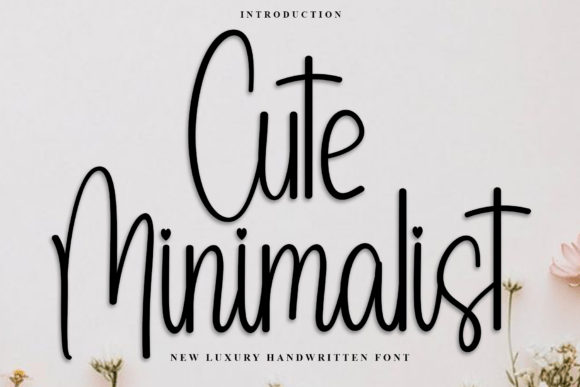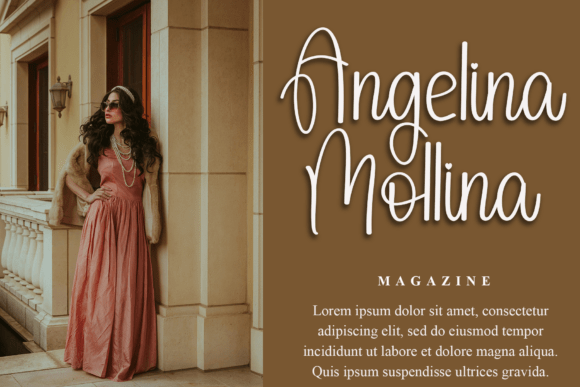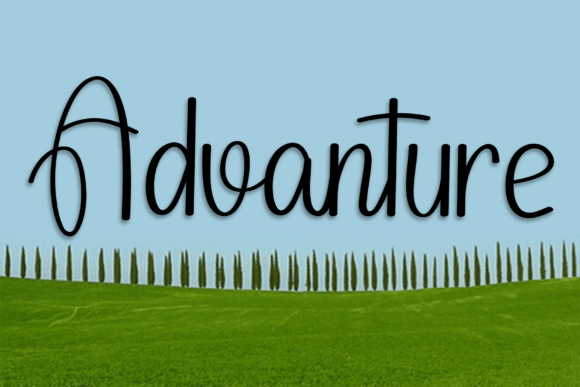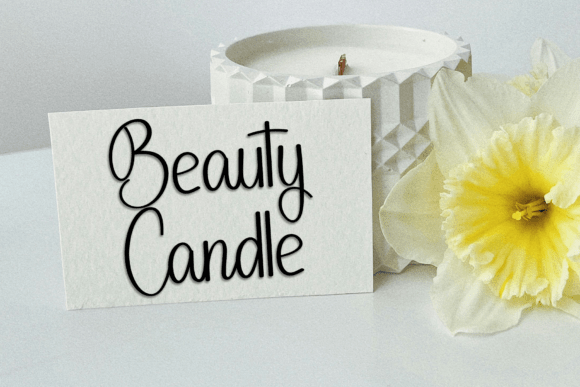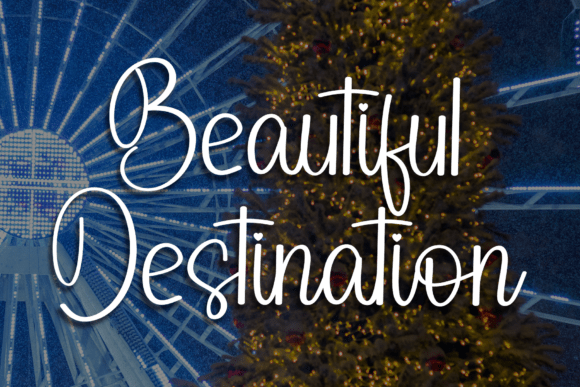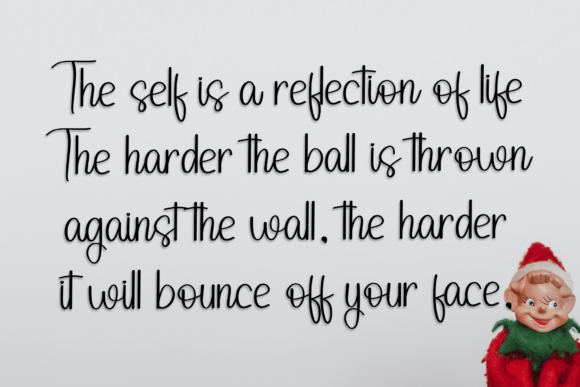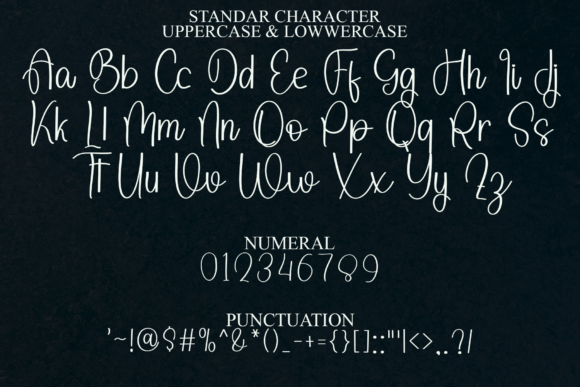
Unleashing the Magic of the Holiday Season: Cute Minimalist Font
As the snowflakes start to fall and the festive lights begin to twinkle, many of us find ourselves in a creative frenzy, eager to capture the essence of the holiday season in our designs. For graphic designers and typographers, this is the perfect moment to bring out the big guns – or in this case, the perfect font.
Enter the Cute Minimalist Font, a delightful and enchanting typeface that embodies the spirit of the holiday season. With its charming decorations and whimsical flair, this font is a treasure trove of creative possibilities, waiting to be unleashed on greeting cards, gift tags, and holiday-themed projects. Whether you’re a seasoned designer or a creative enthusiast, the Cute Minimalist Font is an invaluable addition to your typography toolkit, guaranteed to bring a touch of magic to your words.
Cute Minimalist Font Key Features
- Unique Characteristics: Hand-drawn, minimalist design with rounded edges and subtle flair, perfect for creating a clean and approachable aesthetic
- Character Set: Includes a comprehensive set of Latin characters, including accents and punctuation, as well as basic Cyrillic and Greek characters
- Font Weight: Available in 3 weights: Light, Regular, and Bold, allowing for a range of design options
Cute Minimalist Font Review
I recently had the chance to work with the Cute Minimalist Font, and I must say, it’s a mixed bag. Here are my honest thoughts.
- ✨ Friendly feel: The font has a playful and approachable vibe that’s perfect for projects that need a touch of whimsy.
- ✨ Simple lines: The minimalist design makes it easy to read, even at smaller font sizes.
- ✨ Versatile: It works well in a variety of contexts, from digital interfaces to print materials.
- ⚠️ Limited customization options: While the font is cute, it’s not super customizable, which might be a problem for designers who want to make it their own.
- ⚠️ Not ideal for complex text: Due to its minimalist design, it might not be the best choice for projects that require a lot of text, like books or long articles.
The Cute Minimalist Font is a solid choice for projects that need a playful and approachable feel. While it has its limitations, it’s a great option for designers who want a simple and easy-to-read font. Just be aware of its limitations, and you’ll be all set.
Getting the Most Out of Cute Minimalist Font
Use Cute Minimalist Font for:
• Children’s book titles and headings.
• Food and beverage branding.
• Stationery and invitations.
• Social media graphics and captions.
Cute Minimalist Font is ideal for:
• Whimsical and playful designs.
• Minimalist and modern designs.
• Children’s products and services.
Alternatives to Cute Minimalist Font
Lato is a modern sans-serif font designed by Łukasz Dziedzic. It is perfect for use in headings and titles due to its clean and elegant appearance. Lato is more versatile than Cute Minimalist Font, offering a wide range of weights and styles to choose from. Use Lato when you need a font that is both modern and sophisticated.
Montserrat is a geometric sans-serif font designed by Julieta Ulanovsky. It is ideal for use in digital interfaces and publications due to its clean and highly legible design. Montserrat is more condensed than Cute Minimalist Font, making it perfect for use in narrow spaces. Use Montserrat when you need a font that is both modern and highly legible.
Open Sans is a modern sans-serif font designed by Steve Matteson. It is perfect for use in body text due to its clean and highly legible design. Open Sans is more neutral than Cute Minimalist Font, making it suitable for use in a wide range of applications. Use Open Sans when you need a font that is both clean and highly readable.
Is the Cute Minimalist Font optimized for web use?
Yes, the Cute Minimalist Font is optimized for web use and includes features such as hinting and sub-pixel rendering to ensure smooth and clear text rendering on the web. The font is also designed to be highly legible at small font sizes, making it ideal for use in digital applications such as mobile apps and websites.